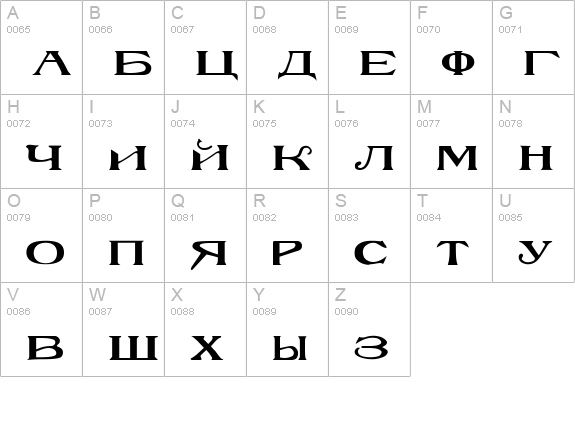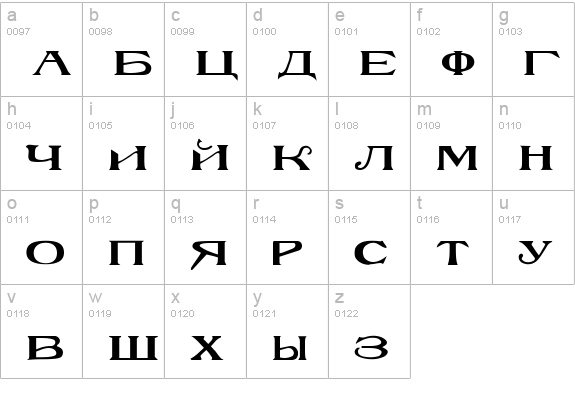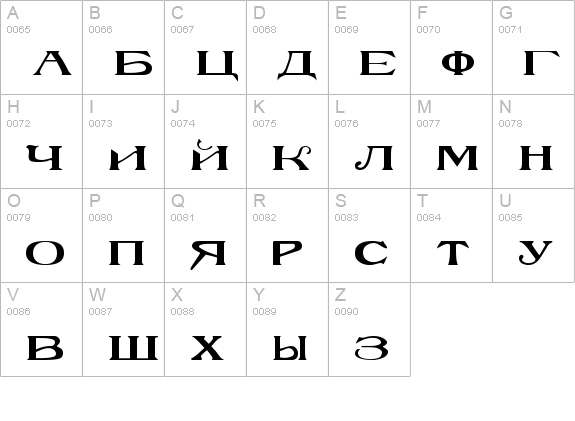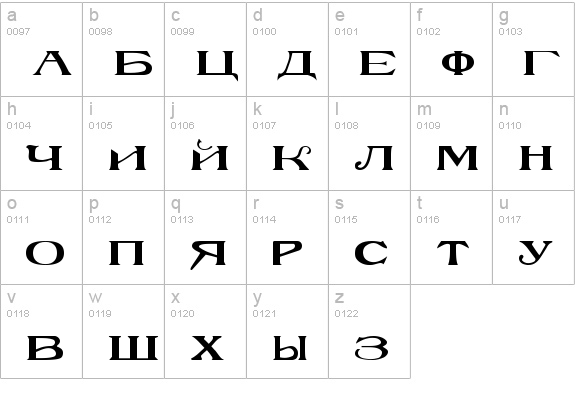
RusskijModern Regular Font Details
RusskijModern Regular is the standard, neutral variant in the RusskijModern typeface family \xE2\x80\x94 well suited to general body text, paragraphs, and standard typographic work.
RusskijModern Regular font is a versatile and elegant typeface that exudes a classic yet modern aesthetic. With its clean lines and distinct letterforms, this font is perfect for a wide range of design projects, from branding to editorial design. The timeless appeal of RusskijModern Regular makes it a popular choice for designers looking to add a touch of sophistication to their work. Best of all, RusskijModern Regular font is available for free download at FontsMarket.com. Whether you're a seasoned designer or just starting out, you can access this beautiful font at no cost. Don't miss out on the opportunity to enhance your projects with the timeless elegance of RusskijModern Regular font. Download it today and elevate your designs to the next level!